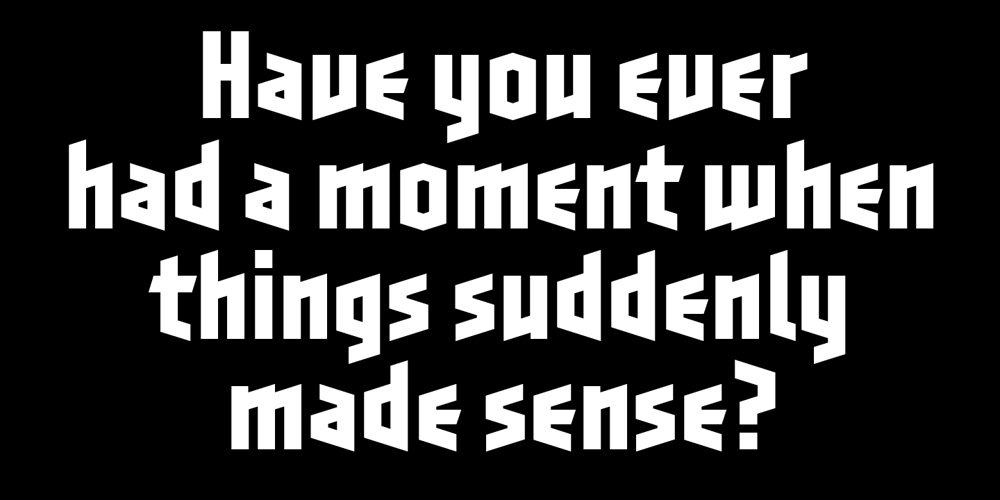
Blackletter Sans Font Family was designed by John Bomparte and published by Bomparte’s Fonts. Blackletter Sans contains 12 styles and family package options. This hybrid of sorts, constructed purely of straight orthogonal and diagonal lines, is remarkably legible and quite distinctive in settings of medium-size text. Its condensed angular forms, stylized yet elegant, work cohesively to create a dynamic and rhythmic typographic texture; and at headline sizes Blackletter Sans is sure to command attention for a wide variety of applications ranging from sports to sci-fi. Standard and international characters are included; and variant forms for many characters are available (Blackletter Sans Two), and a generous assortment of ligature sets.